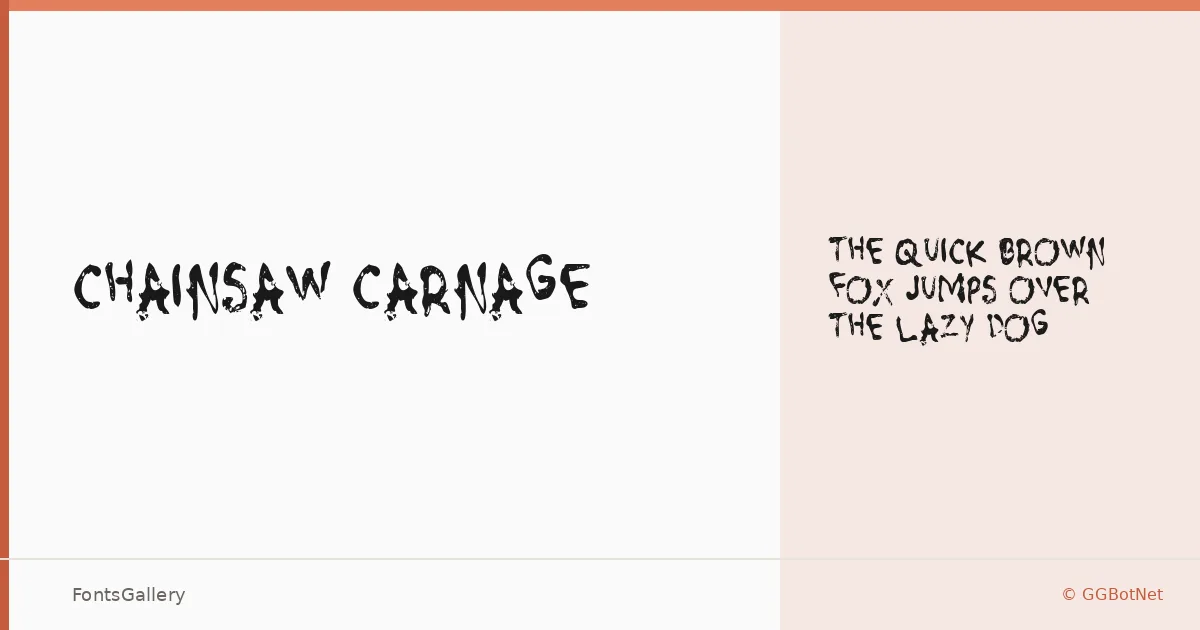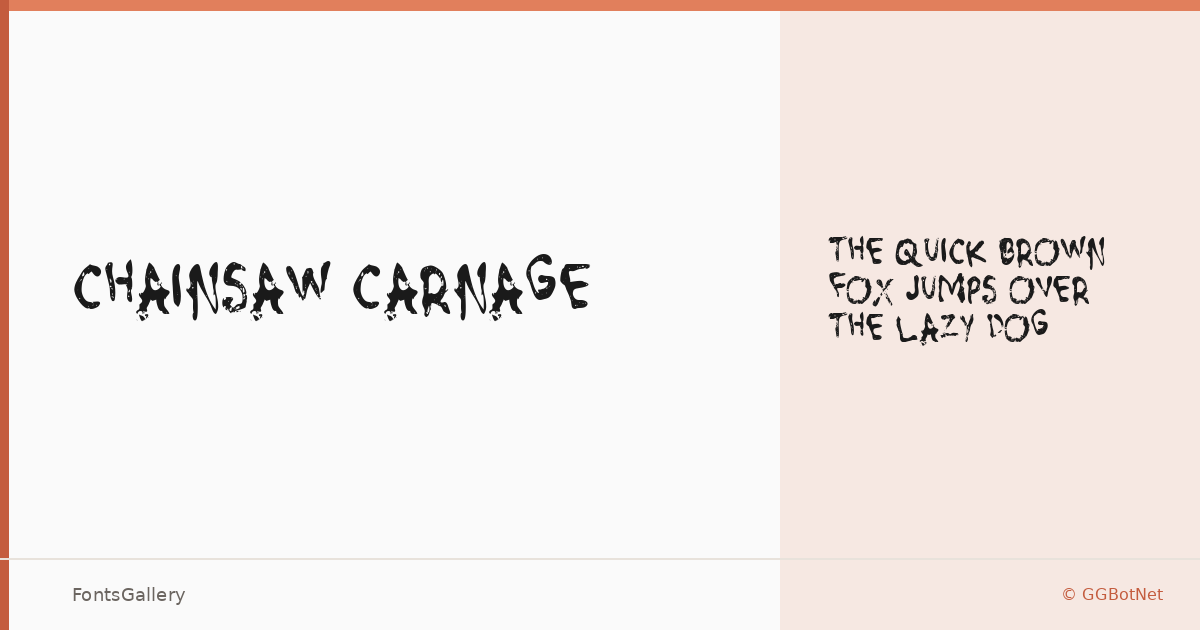
About Chainsaw Carnage Font
Chainsaw Carnage is a display typeface crafted by GGBotNet, designed to make a powerful visual impact with its bold, grungy character. Rooted in a vintage aesthetic, this font brings raw energy and attitude to any creative project. Its striking personality makes it a standout choice for designers seeking a typeface with true edge and presence.
Chainsaw Carnage features bold, heavily weighted letterforms infused with grunge textures and vintage character that give each glyph a rugged, worn quality. The display-oriented design embraces rough edges and expressive shapes that command attention and convey a sense of gritty, rebellious intensity. These characteristics combine to create a typeface that feels both timeless in its vintage roots and boldly contemporary in its attitude.
Chainsaw Carnage excels in high-impact applications such as logos, posters, branding campaigns, magazine layouts, and T-shirt designs where a strong visual statement is essential. Its bold, grunge-driven style ensures it stands out in print and apparel contexts alike. For a balanced typographic pairing, consider combining it with the clean neutrality of Helvetica or the complementary character of Aresink.